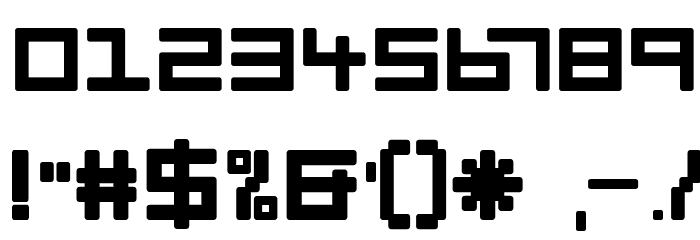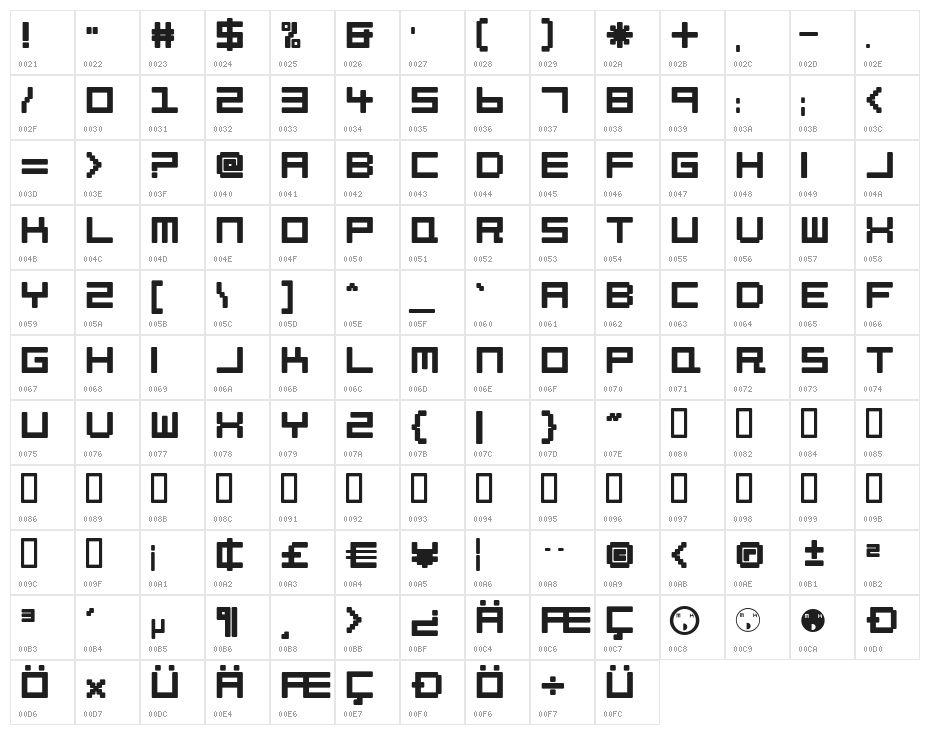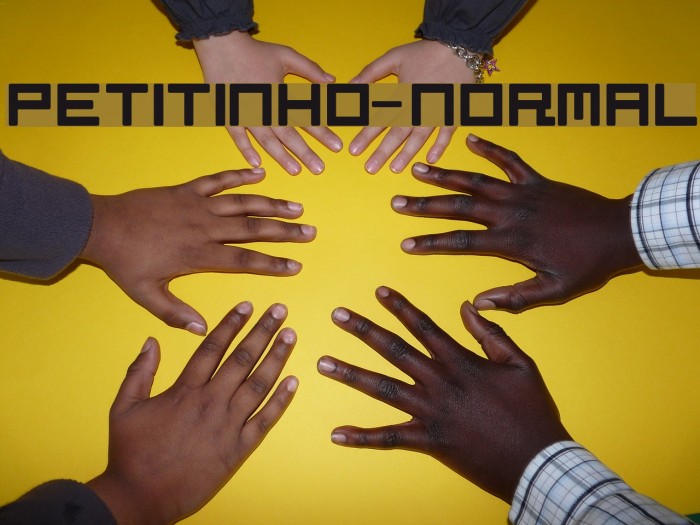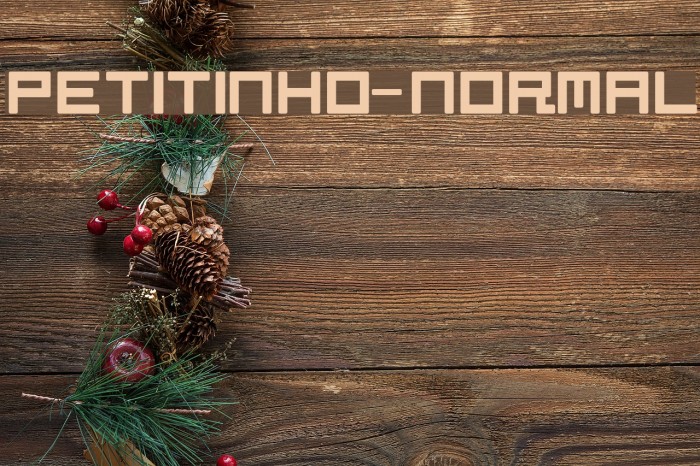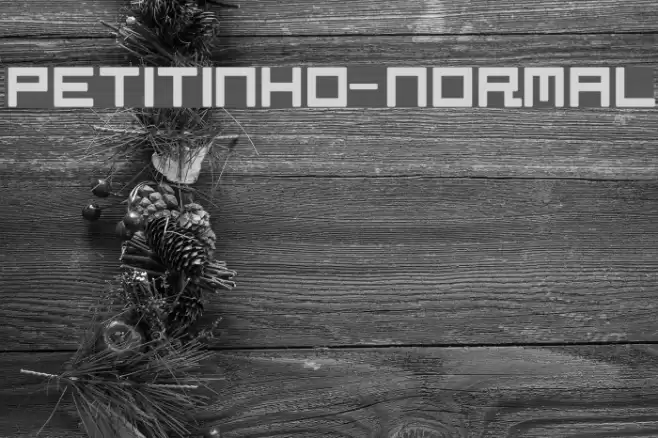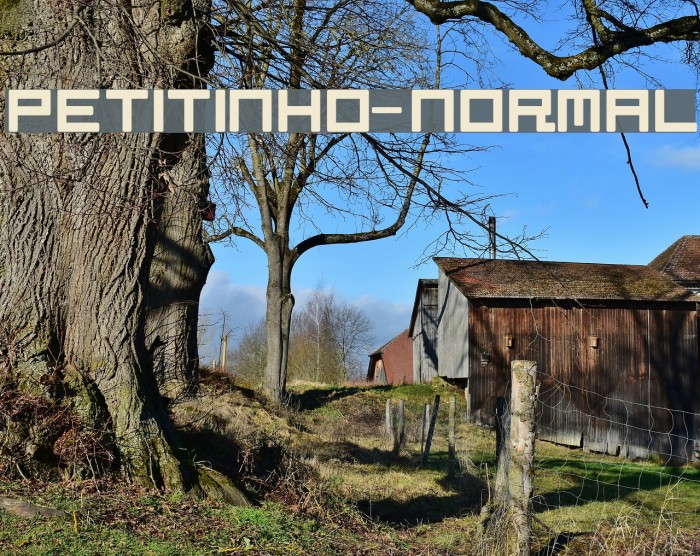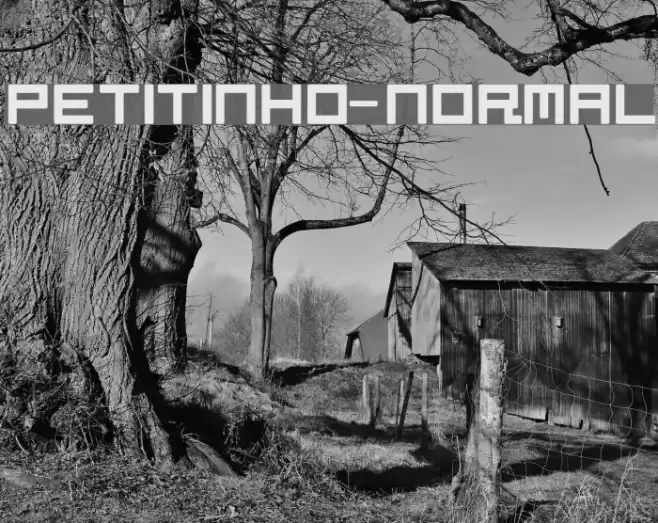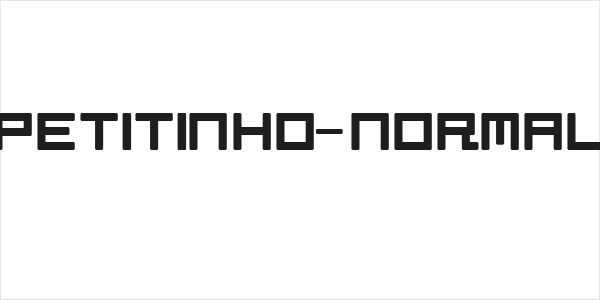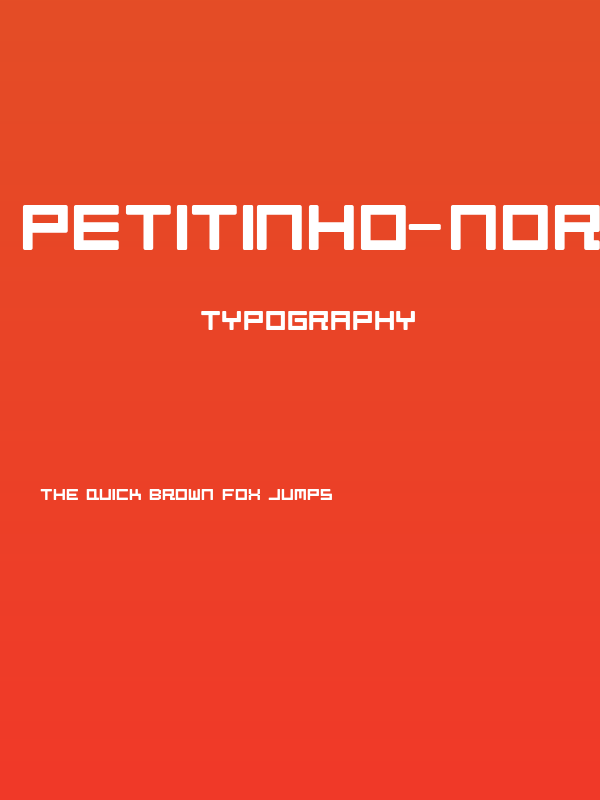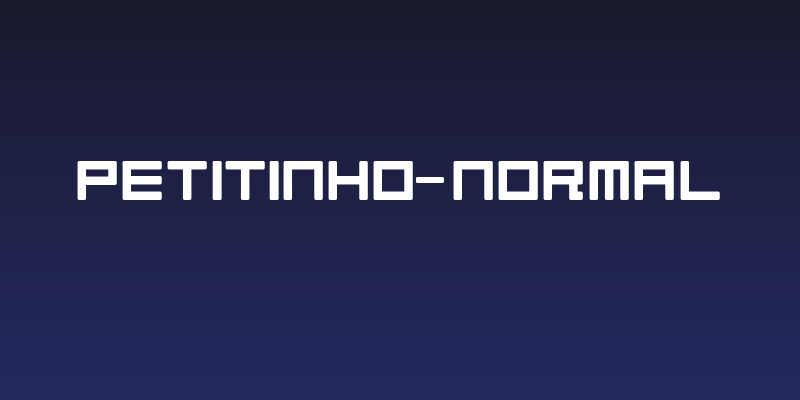
Petitinho-Normal Font
Petitinho-Normal Description
This font features a bold, geometric design with a modern and futuristic appeal. The characters are constructed with thick, uniform strokes and a blocky appearance, giving them a strong presence. The style is consistent across both uppercase and lowercase letters, as well as numbers and special characters. The font's structure is highly legible, making it suitable for various digital and print applications. Its unique design is characterized by sharp angles and a squared-off aesthetic, which adds a distinctive touch to any project.
Proposed ProjectsIdeal for technology branding, digital interfaces, video game graphics, and modern advertising campaigns.